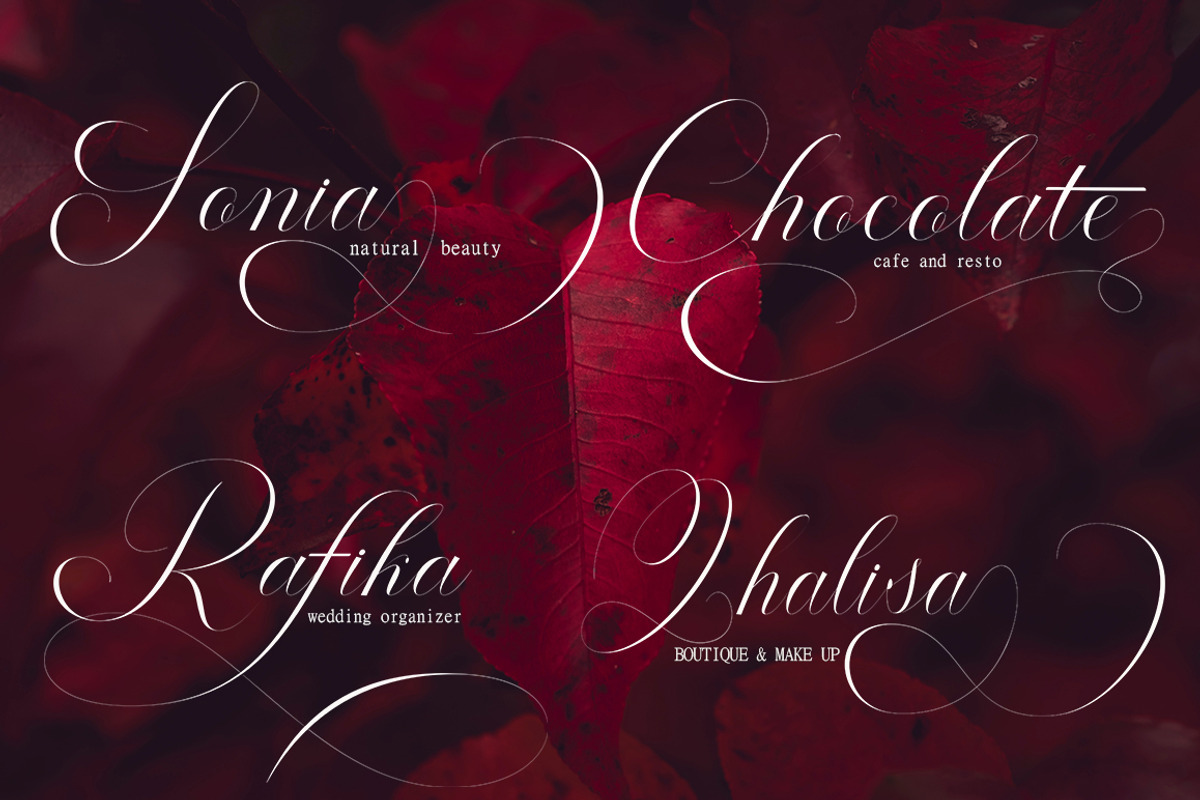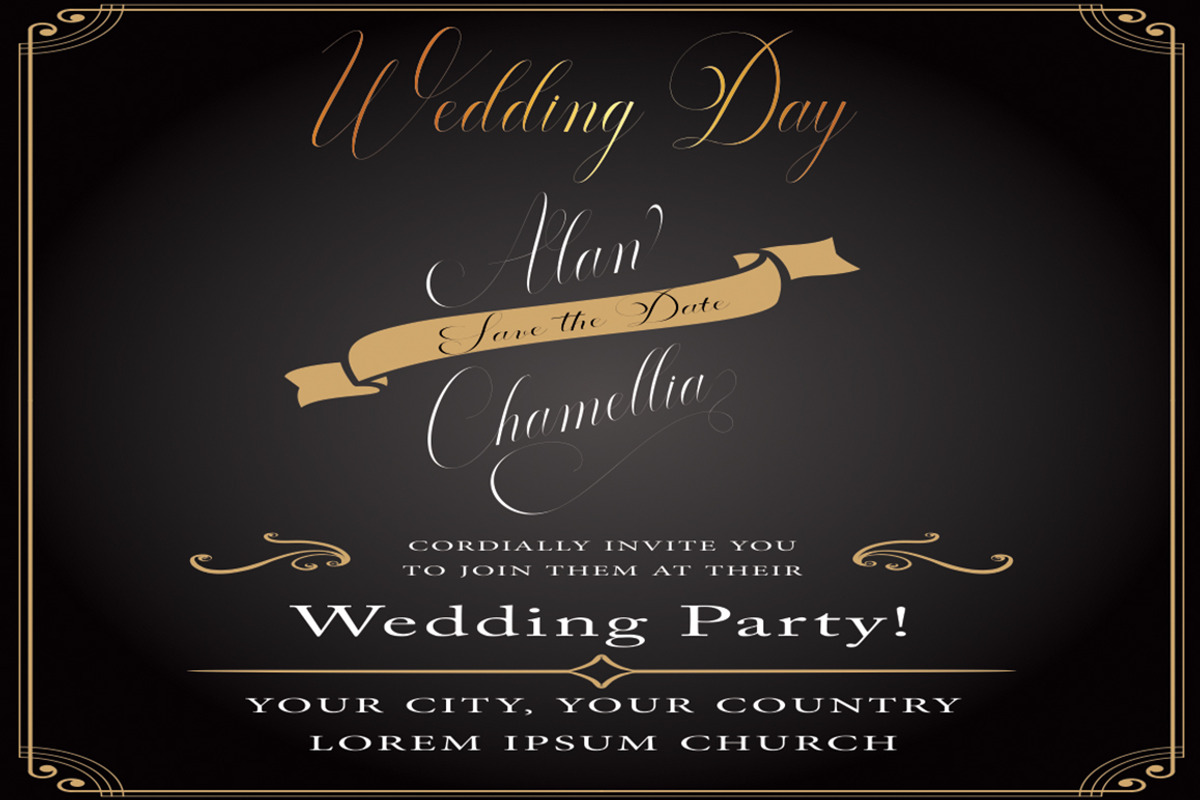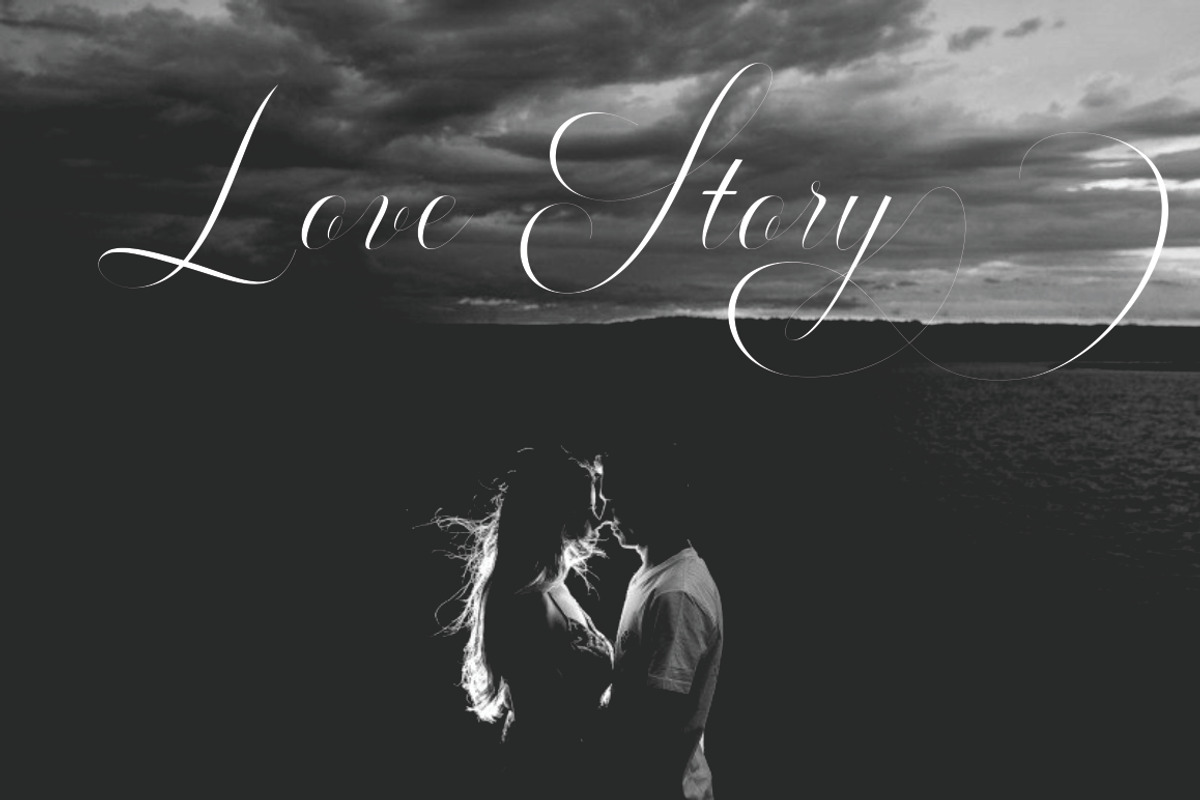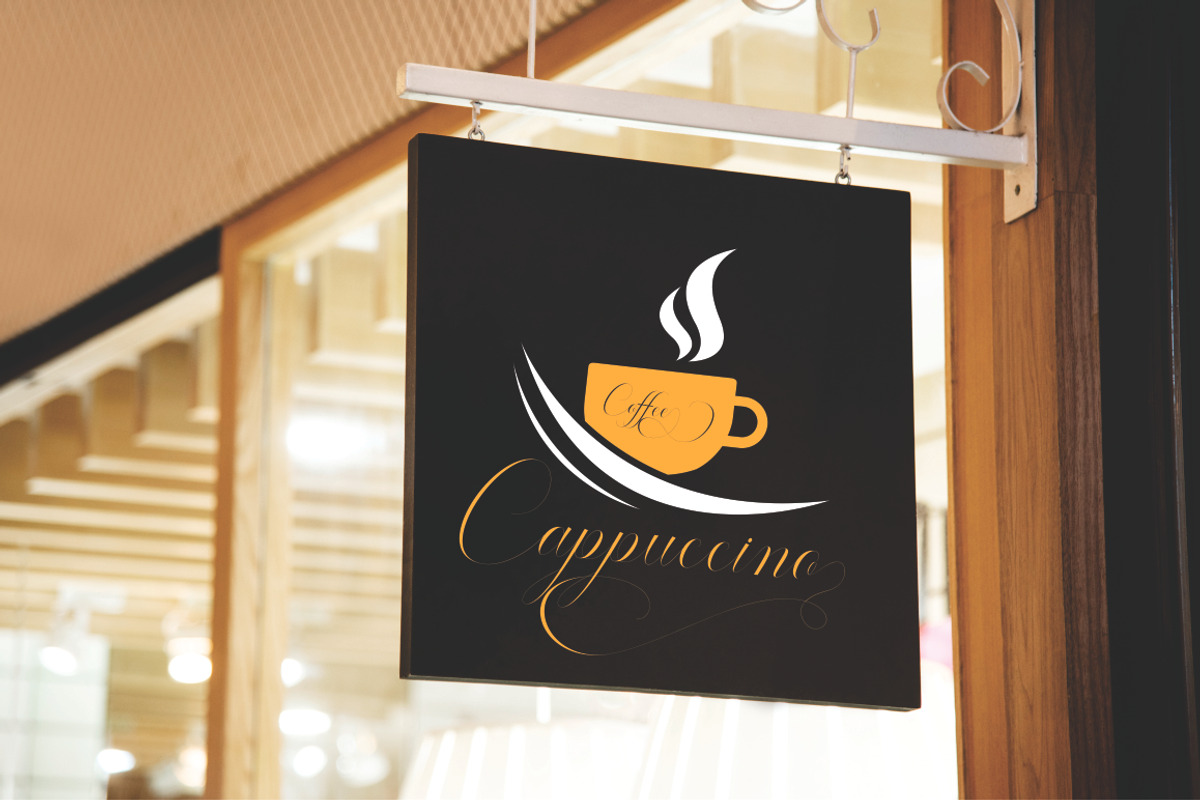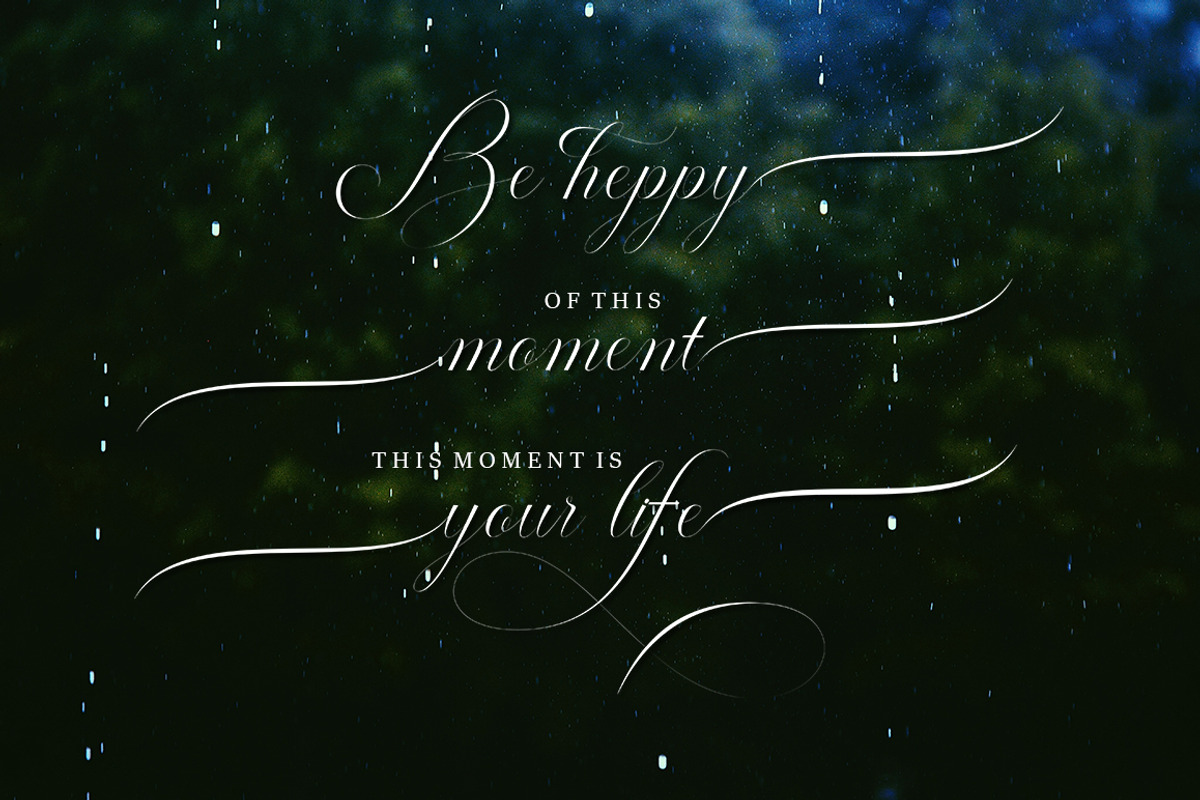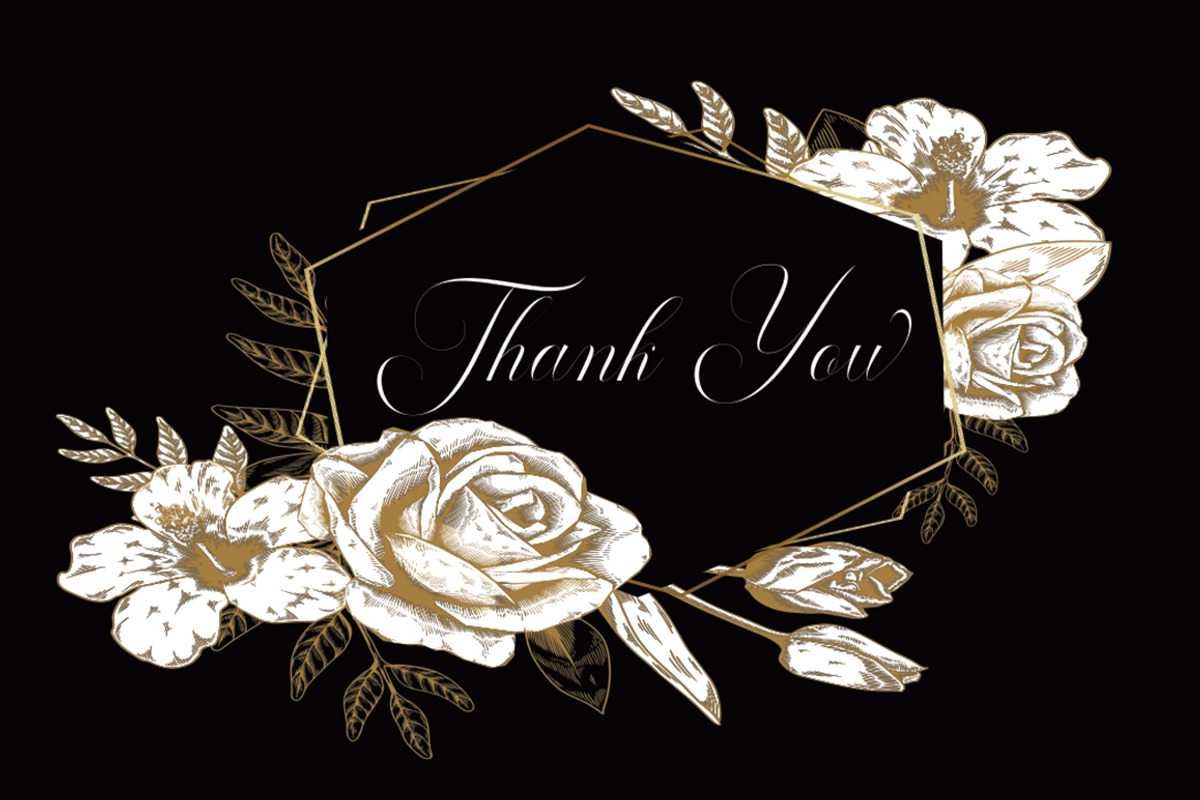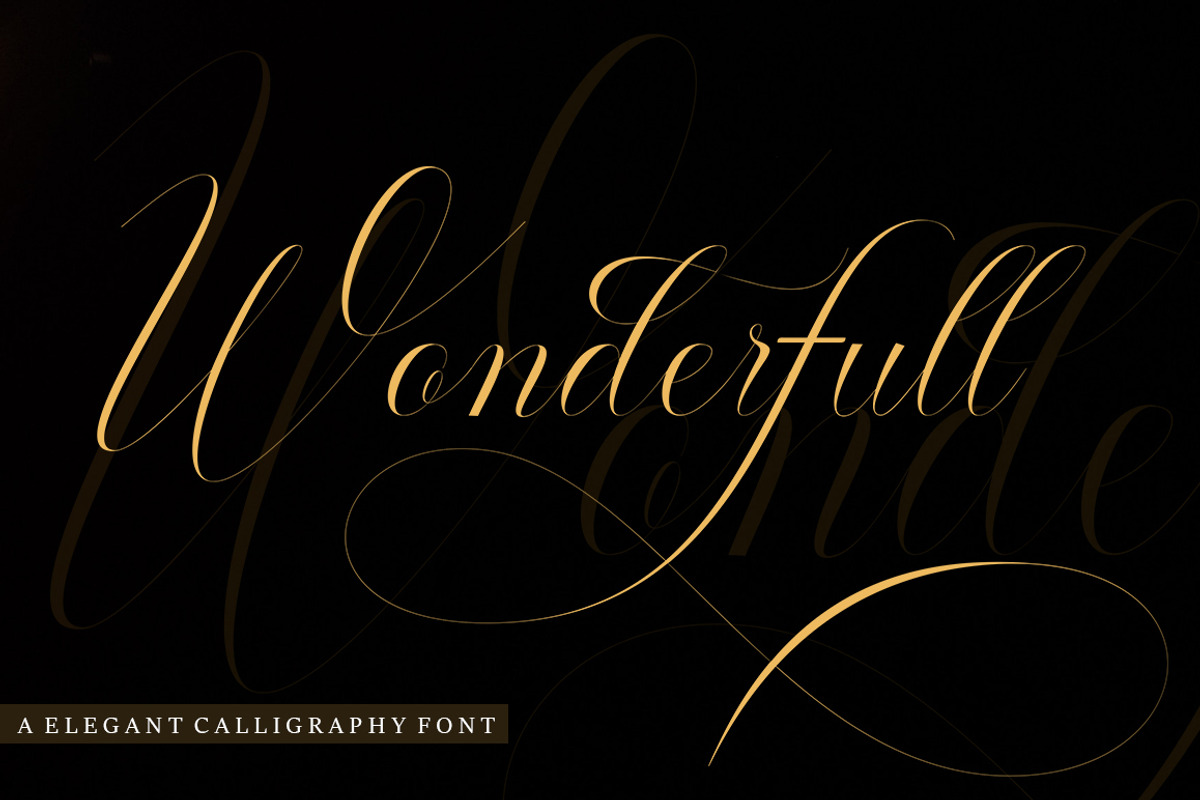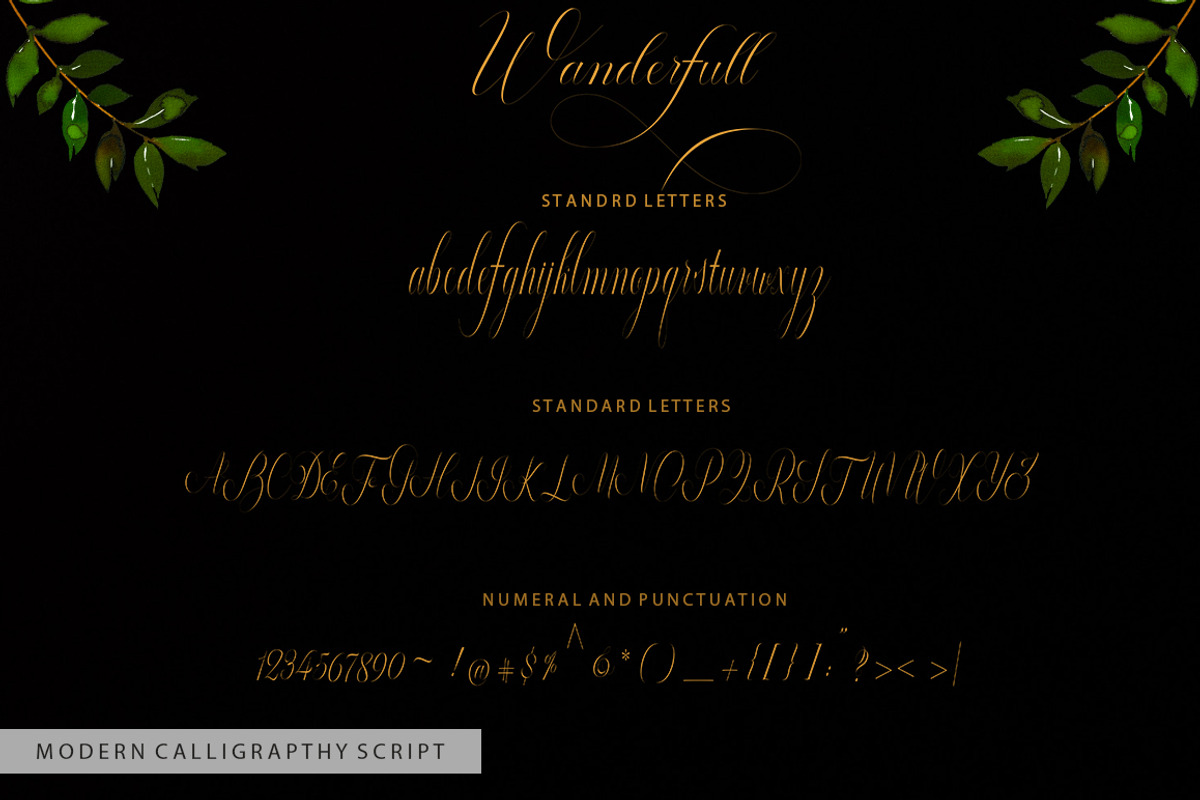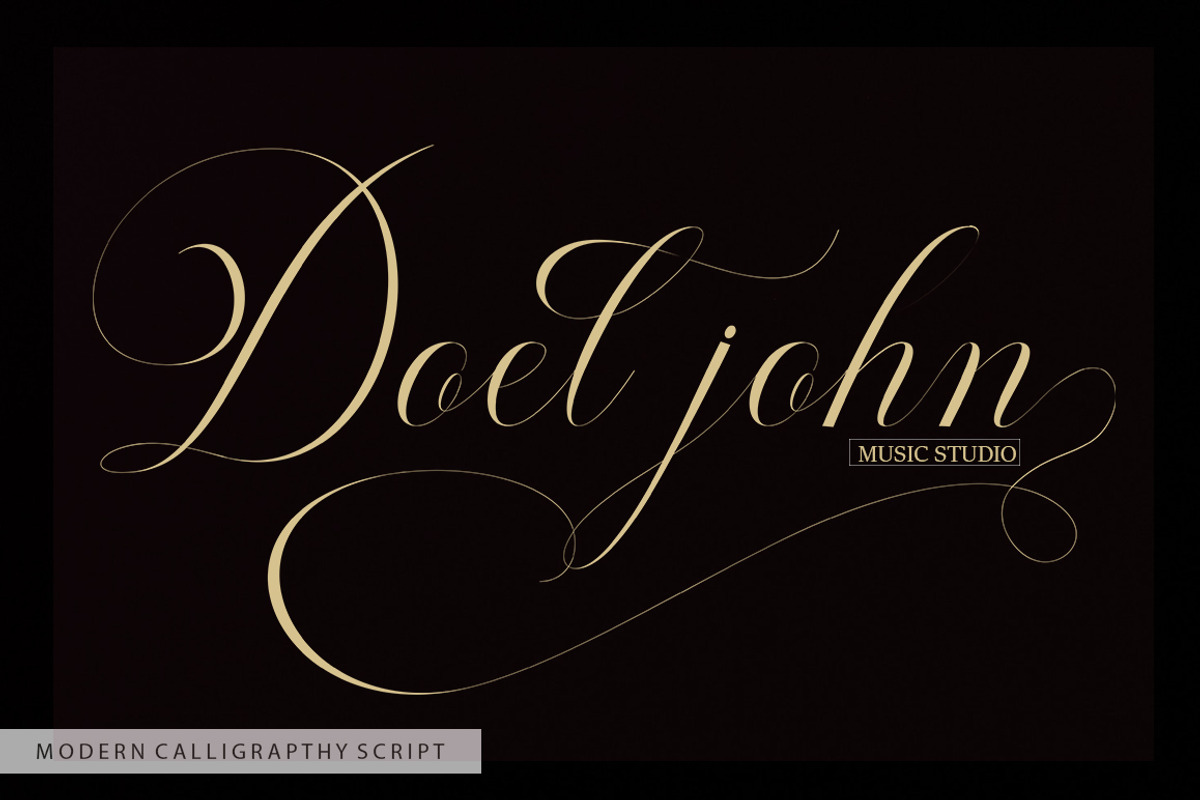
Wonderfull
Wonderfull script is a modern calligraphy design, including Regular. This font is casual and beautiful with swash. Can be used for various purposes. such as logos, product packaging, wedding invitations, branding, headlines, signage, labels, signatures, book covers, posters, quotes, and more.